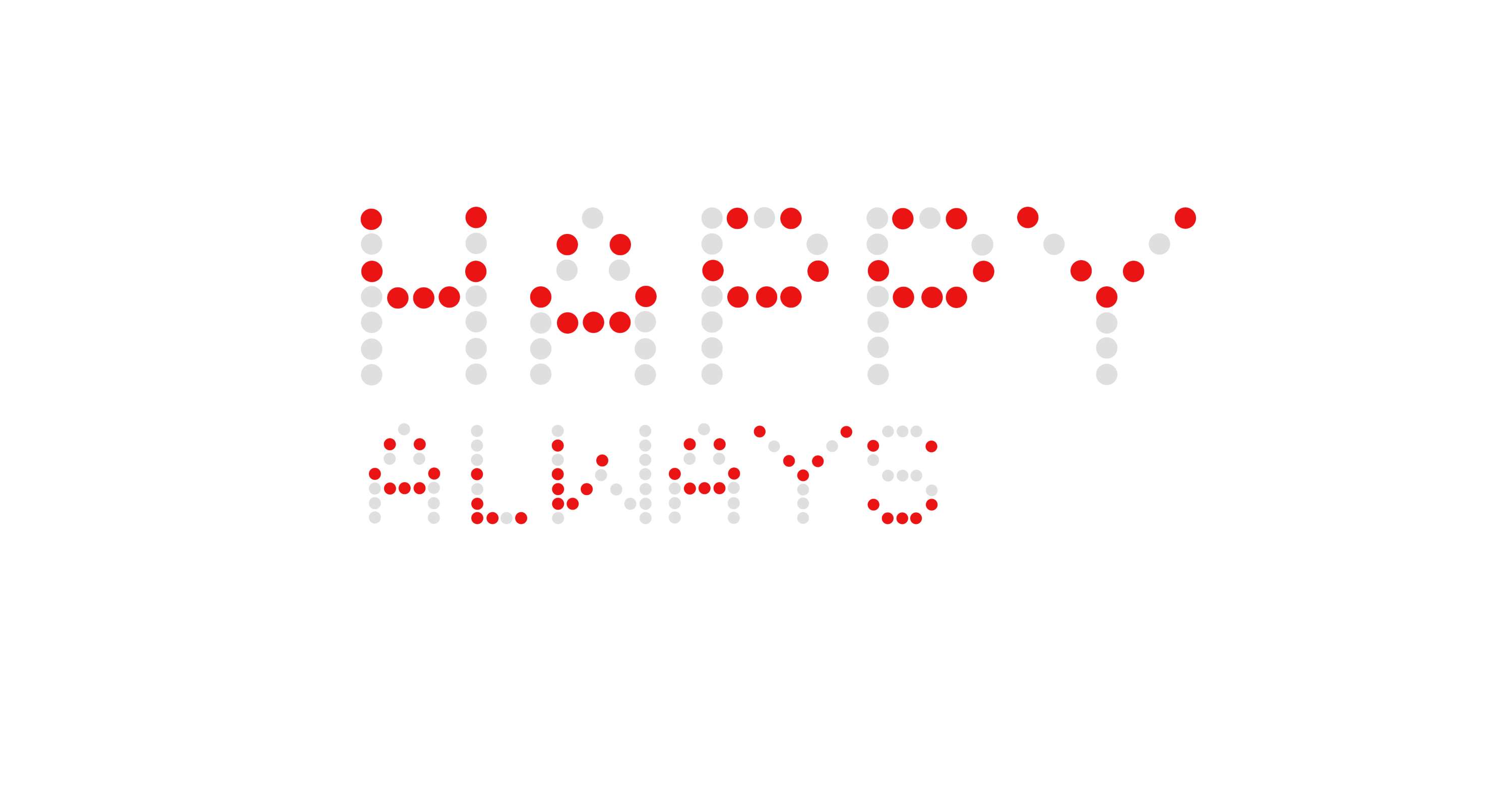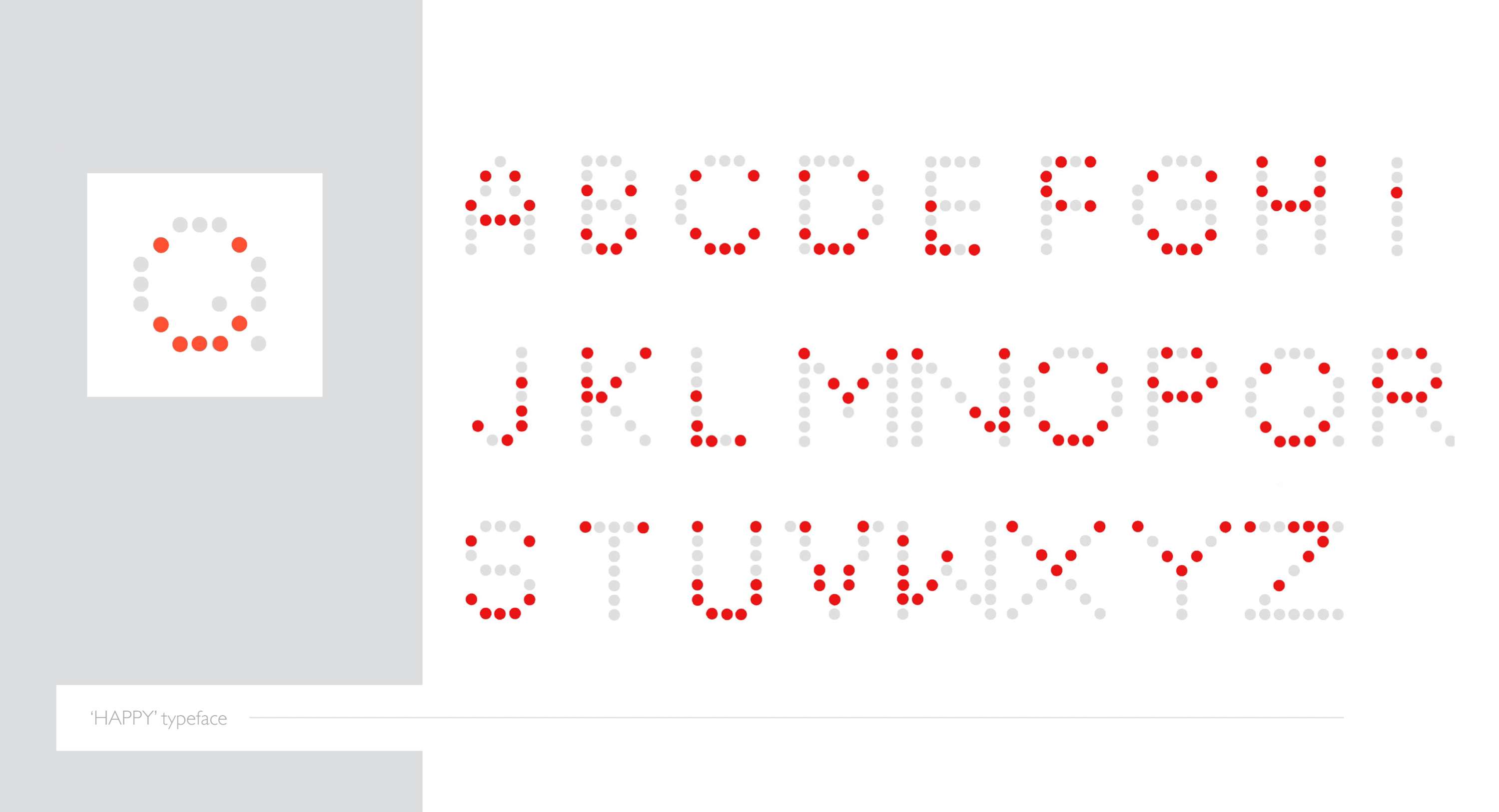
HAPPY Typeface
We were asked to fill in an anonymous questionaire about ourselves, and then swap it in the class. The questionaire was used to reveal the writer’s personalities and we were asked to design a typeface based on the personalities.
HAPPY Typeface by Beth Xia
Solution:
She is a happy and outgoing girl, maybe a bit shallow, but kind. I decided to design a typeface that looks happy and makes people smile.
In this design, the characters are made by dots with the red dots forming smiley faces. Red is her favourite colour and it looks energetic. The dots leave plenty of open space in the characters and bring an outgoing and shallow look. She loves laughing. I think a smiley face in each characters can be quite simple and clear.
HAPPY Typeface by Beth Xia